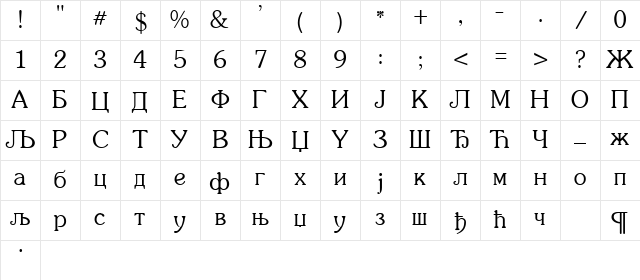
C_Southern Normal Free Font
C_Southern Normal
Design Context for C_Southern
C_Southern is a composed and adaptable typeface that performs quietly and consistently across a wide range of design contexts.